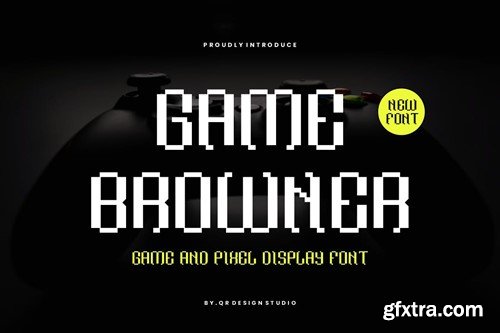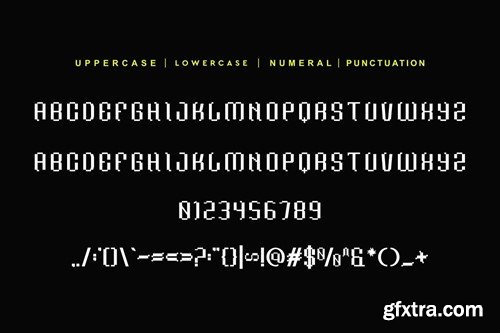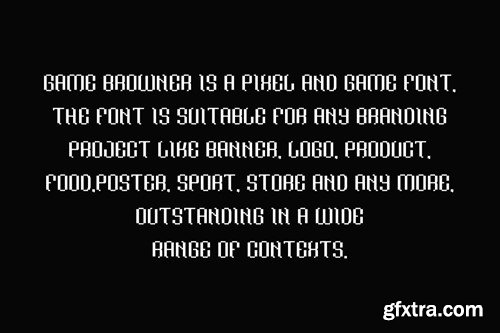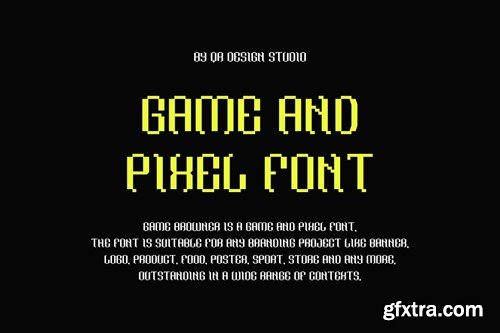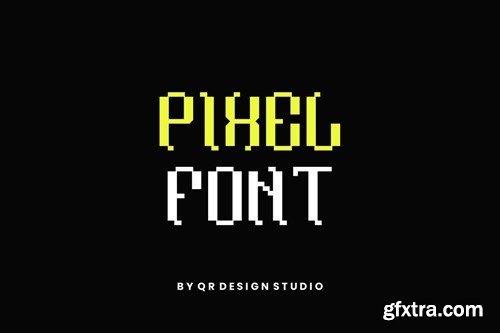
Game Browner - Pixel & Glitch Font
Game Browner Font is a decorative and authentic display font. The font is suitable for any branding project like poster, logo, sport, and many more. Outstanding in a wide range of contexts.